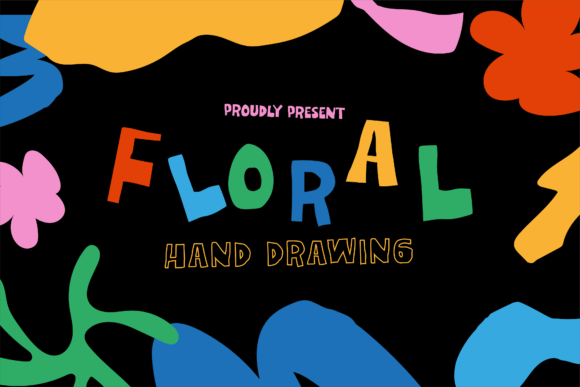
Unleash Your Creativity with Floral Handdrawing Font
In the world of typography, few fonts manage to capture the essence of playfulness and freedom as effectively as the Floral Handdrawing Font. This captivating, hand-drawn font is designed to bring a wild and free-spirited aesthetic to your designs, making it the perfect complement to cool brand styles. With its unique blend of elegance and whimsy, Floral Handdrawing Font is poised to inject an incredibly joyful energy into your projects, turning them into memorable statements.
The Charm of Hand-Drawn Typography
Hand-drawn fonts have a special charm that digital fonts often lack. They carry with them the personal touch of the artist, evident in the subtle imperfections and the unique character of each letter. The Floral Handdrawing Font takes this charm to a new level with its intricate floral designs and playful twists, making it a standout in the world of typography.
Key Features of Floral Handdrawing Font
- Playful and Whimsical: The font features playful, hand-drawn floral elements that add a whimsical touch to any design.
- Wild and Free-Spirited: Its unique design makes it perfect for projects that require a bold and adventurous look.
- Highly Versatile: Suitable for a wide range of projects, from branding and packaging to posters and digital media.
Unleashing Creativity with Floral Handdrawing Font
The Floral Handdrawing Font is more than just a typeface; it’s a tool for creative expression. Its unique aesthetic allows designers to break away from conventional typography and explore new dimensions of creativity. Whether you’re working on a branding project, a marketing campaign, or simply exploring your artistic side, this font provides the perfect foundation for creating something truly unique.
Perfect for Cool Brand Styles
For brands looking to make a statement, the Floral Handdrawing Font offers a refreshing alternative to traditional typography. Its playful and wild aesthetic aligns perfectly with cool brand styles that seek to connect with a younger, more vibrant audience. By incorporating this font into your brand’s visual identity, you can instantly elevate your message and make it more engaging.
How to Use Floral Handdrawing Font in Your Projects
Incorporating the Floral Handdrawing Font into your designs is straightforward. Here are some tips to get you started:
- Pair it with Solids: Combine the Floral Handdrawing Font with solid colors or gradients to create a striking contrast.
- Experiment with Sizes: Play around with different font sizes to emphasize certain words or phrases and create visual hierarchy.
- Add Graphics: Enhance your text with relevant graphics or icons that complement the floral theme.
- Try Different Backgrounds: Use textures, patterns, or images as backgrounds to add depth and interest to your text.
The Floral Handdrawing Font is a powerful tool for designers looking to infuse their projects with a playful, wild, and free-spirited vibe. Its unique aesthetic and versatility make it an excellent choice for a wide range of applications, from branding and advertising to personal projects and artistic explorations. By embracing this captivating hand-drawn font, you can unleash your creativity and create designs that are not only visually stunning but also memorable.